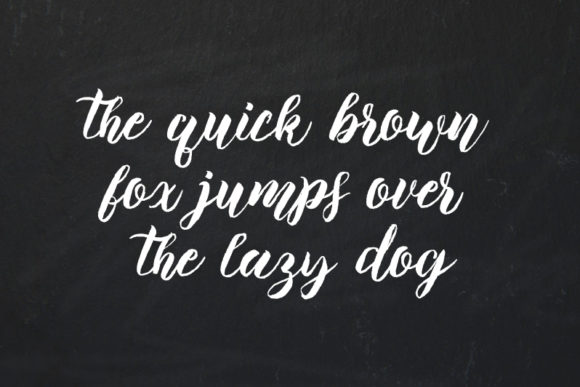
Introducing Anteiku Font: Adding a Touch of Natural Elegance to Your Designs
Are you tired of using the same old fonts in your designs? Look no further than Anteiku Font, a striking textured brush font that’s sure to add a natural feel to your creations. With its irregular baseline and unique texture, Anteiku is perfect for designers and crafters looking to add a touch of elegance and sophistication to their work.
The Unique Features of Anteiku Font
Anteiku Font is a one-of-a-kind font that boasts an irregular baseline, giving it a natural, hand-crafted feel. This feature makes it perfect for designs that require a personal touch, such as handmade crafts, artisanal products, and bespoke designs. The font’s texture is also noteworthy, with a rough, brush-like quality that adds depth and character to any design.
Uses for Anteiku Font
Anteiku Font is incredibly versatile and can be used in a variety of design projects, including:
- Handmade crafts and DIY projects
- Artisanal products and packaging
- Bespoke designs and custom branding
Benefits of Using Anteiku Font
So why choose Anteiku Font for your designs? Here are just a few benefits:
- Unique and eye-catching: Anteiku Font is sure to grab attention with its distinctive texture and irregular baseline.
- Natural and organic feel: The font’s natural, hand-crafted feel makes it perfect for designs that require a personal touch.
- Versatile: Anteiku Font can be used in a wide range of design projects, from handmade crafts to bespoke branding.
- Easy to read: Despite its textured and irregular nature, Anteiku Font is surprisingly easy to read, making it perfect for body text and headlines.
Tips for Using Anteiku Font
To get the most out of Anteiku Font, here are a few tips:
- Use it sparingly: Anteiku Font is a bold and eye-catching font, so use it sparingly to avoid overwhelming your design.
- Pair it with a simple font: Pair Anteiku Font with a simple, sans-serif font to create a striking contrast.
- Experiment with colors: Anteiku Font looks great in a range of colors, from earthy tones to bright and bold hues.
- Play with texture: Anteiku Font’s texture is one of its standout features, so experiment with different textures and patterns to add depth to your design.
Anteiku Font is a unique and versatile font that’s perfect for designers and crafters looking to add a touch of natural elegance to their designs. With its irregular baseline and textured brush-like quality, Anteiku is sure to grab attention and add a personal touch to any design project. Whether you’re working on handmade crafts, bespoke branding, or signage, Anteiku Font is a great choice. So why not give it a try and see the difference it can make in your designs?